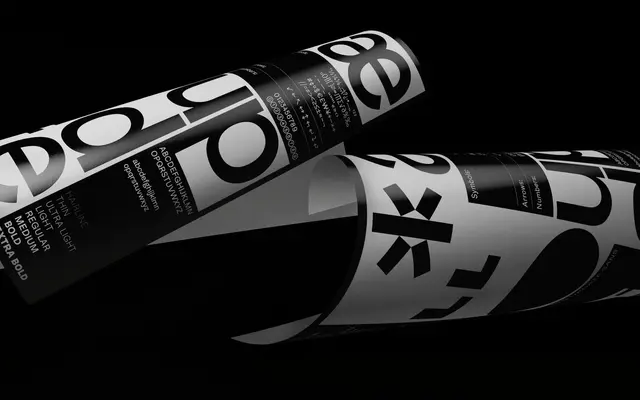
MT Update Sans
Modern Type · Ana Andreeva, Dalton Bruyns · 2024
A flared grotesque drawn from 1970s and 80s type manuals, built with mono-like proportions and a wide weight range from Hairline to Heavy.
Designed by Ana Andreeva and Dalton Bruyns and released in 2024, MT Update Sans takes cues from mid-century manual typography to produce a proportional grotesque with flared terminals. The nine-weight range stretches from an extreme Hairline through to Heavy, giving the family reach across tight editorial settings and heavier display use. Its uniform proportions, borrowed in spirit from monospaced conventions, are intended to support expansion across different scripts and spacing systems.
Described as a flared grotesque drawing on 1970s–80s type manuals, with mono-like proportions — placing it firmly in the grotesque tradition with a humanist inflection from the flared terminals.